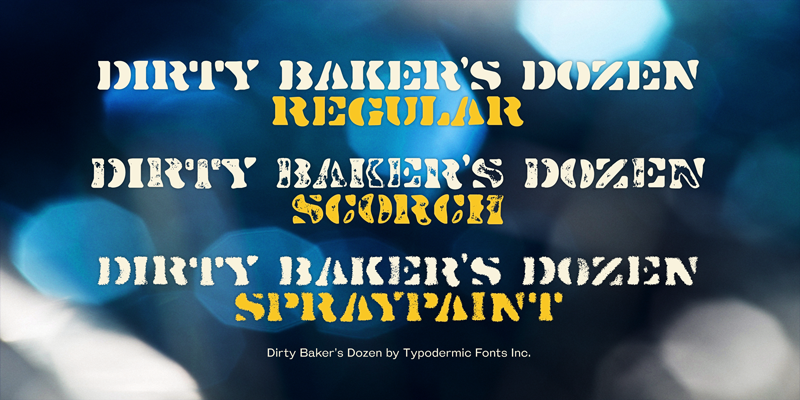
Dirty Baker’s Dozen, was released in 1998 and has since become the gold standard in raunchy stencil fonts. This version of Dirty Baker’s Dozen is pants-full of handy symbols, fractions, accents and what not. Need numeric ordinals? Probably not, but if you do, Dirty Baker’s Dozen will be there with boots on and numeric ordinals a-blazing. Two new styles were introduced in 2009: Scorch & Spraypaint. When you’re using Scorch or Spraypaint styles in an OpenType savvy application, common letter pairs will be automatically replaced by custom pairs for a more realistic, filthy effect. This font includes a license that allows free commercial use: sometimes referred to as a desktop license. This allows you to install the font on a computer and use it to create posters, web graphics, game graphics, t-shirts, videos, signs, logos and more. Read the license agreement for details. If you'd like to embed this font in an app, ebook, on the web or anything that's not covered by the desktop license agreement, visit the link below. You'll find distributors who offer different types of licenses or you can contact me for help. http://typodermicfonts.com/dirty-bakers-dozen/ This free font is part of a larger font family. Check out the rest of the family through the link above. |